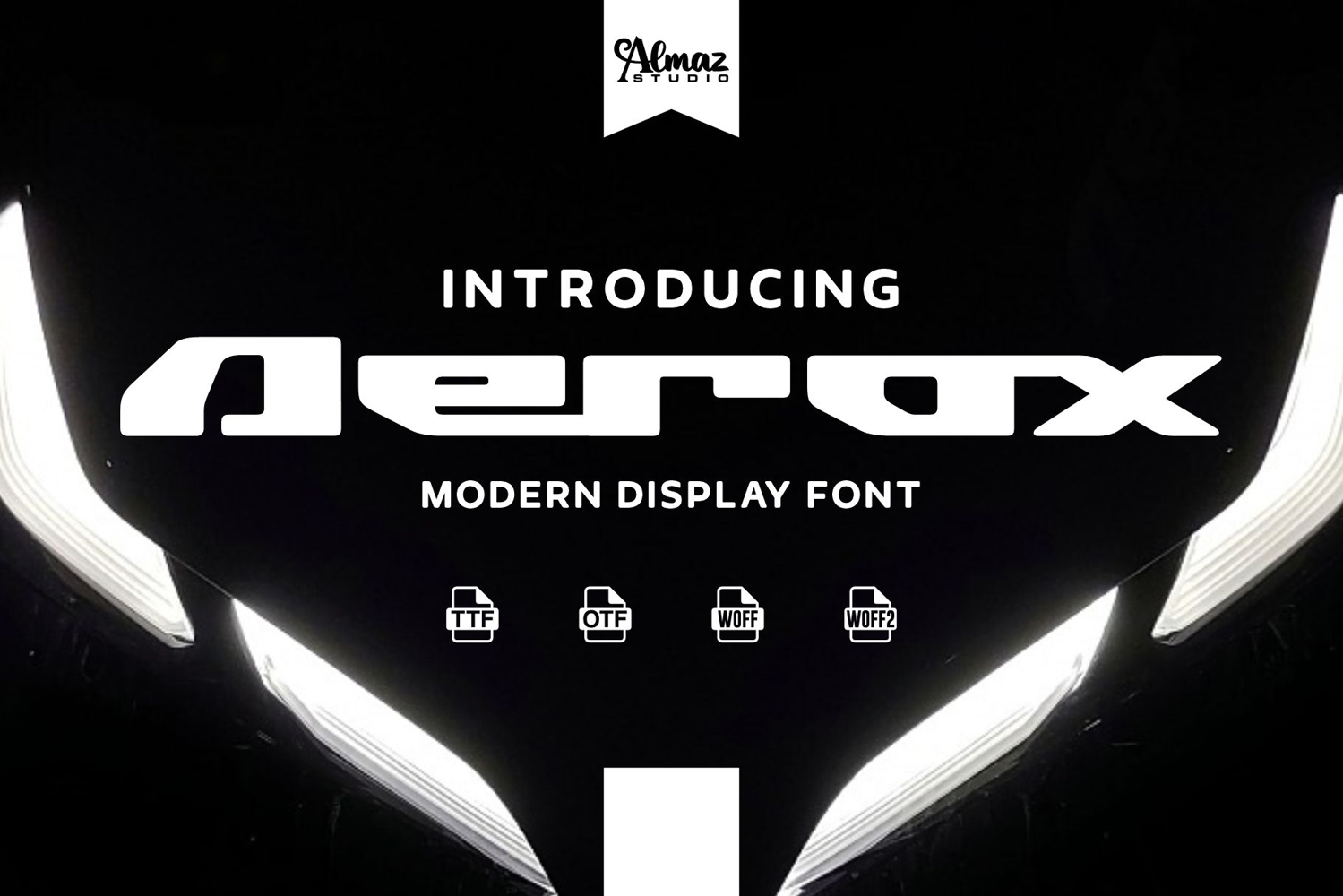
Aerox
Aerox is a modern display font with a bold, futuristic character. Its design features clean geometric shapes, smooth rounded corners, and aerodynamic letter cuts, creating a strong sense of speed, technology, and modernity. Each character is crafted with unique proportions that give the font a striking and distinctive visual presence.
Aerox is ideal for a wide range of creative applications such as automotive branding, technology projects, esports, posters, UI/UX design, logos, and futuristic-themed visuals. Its powerful and professional appearance helps designs stand out while reinforcing a modern and innovative identity.